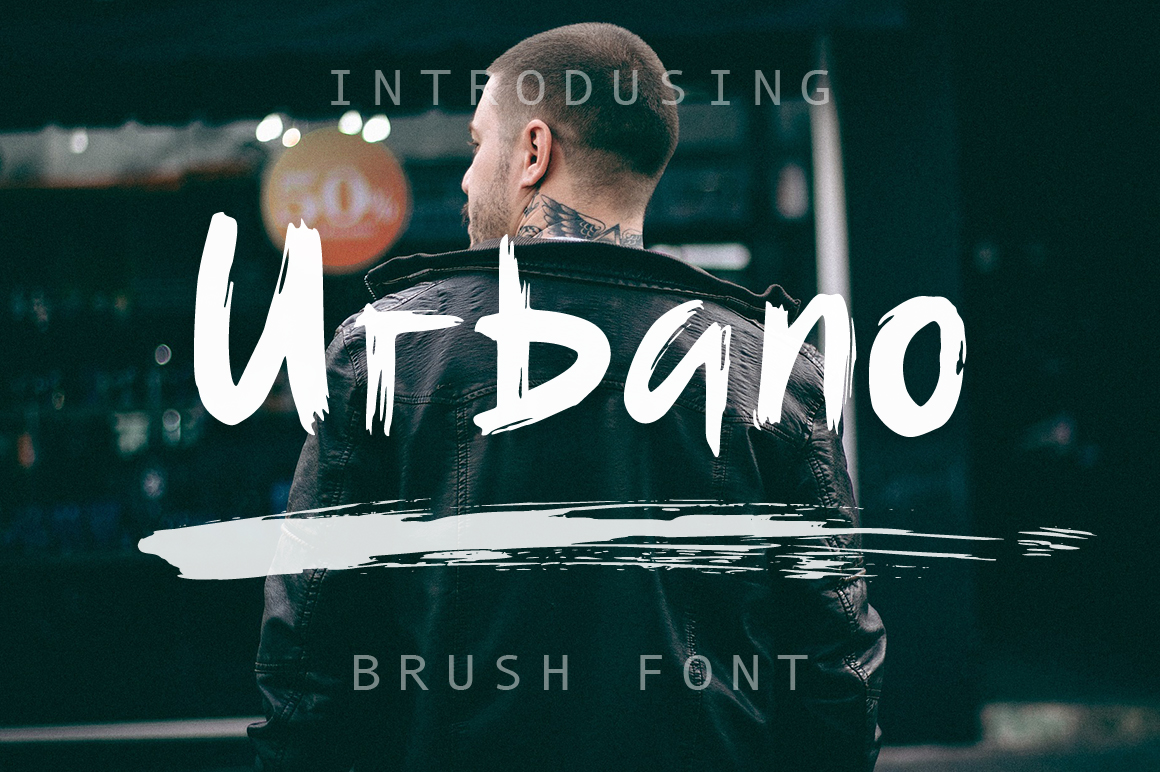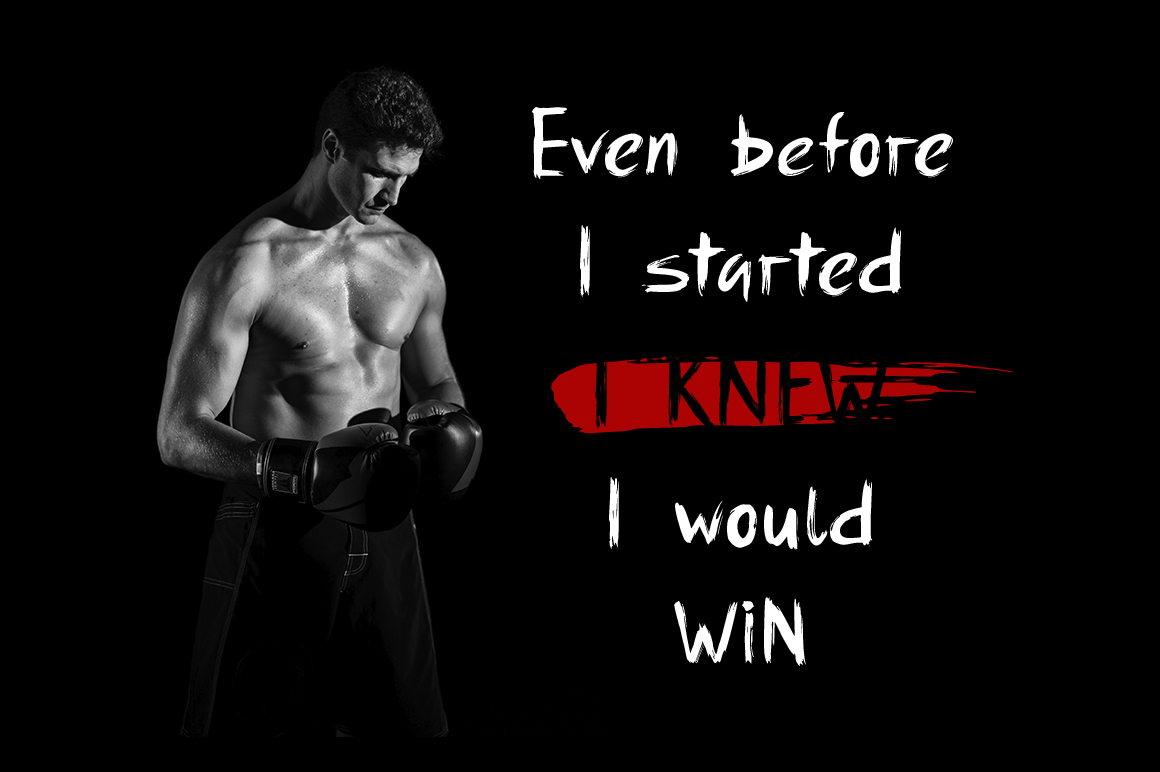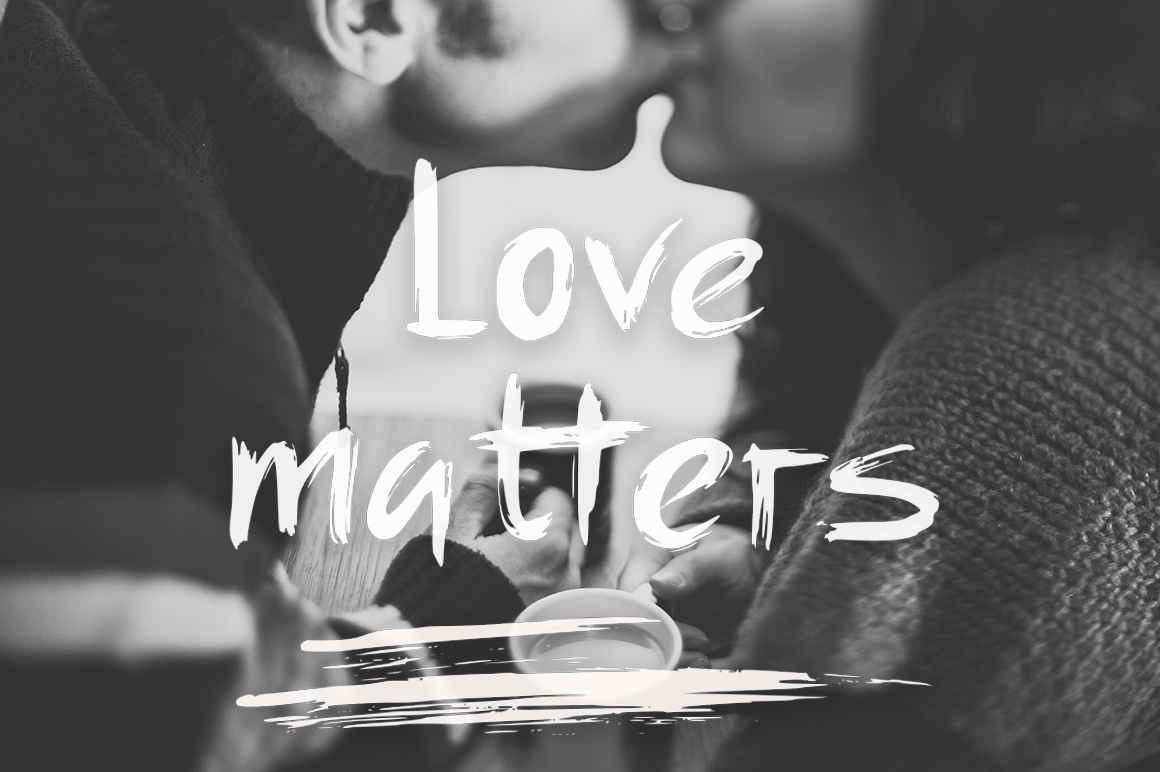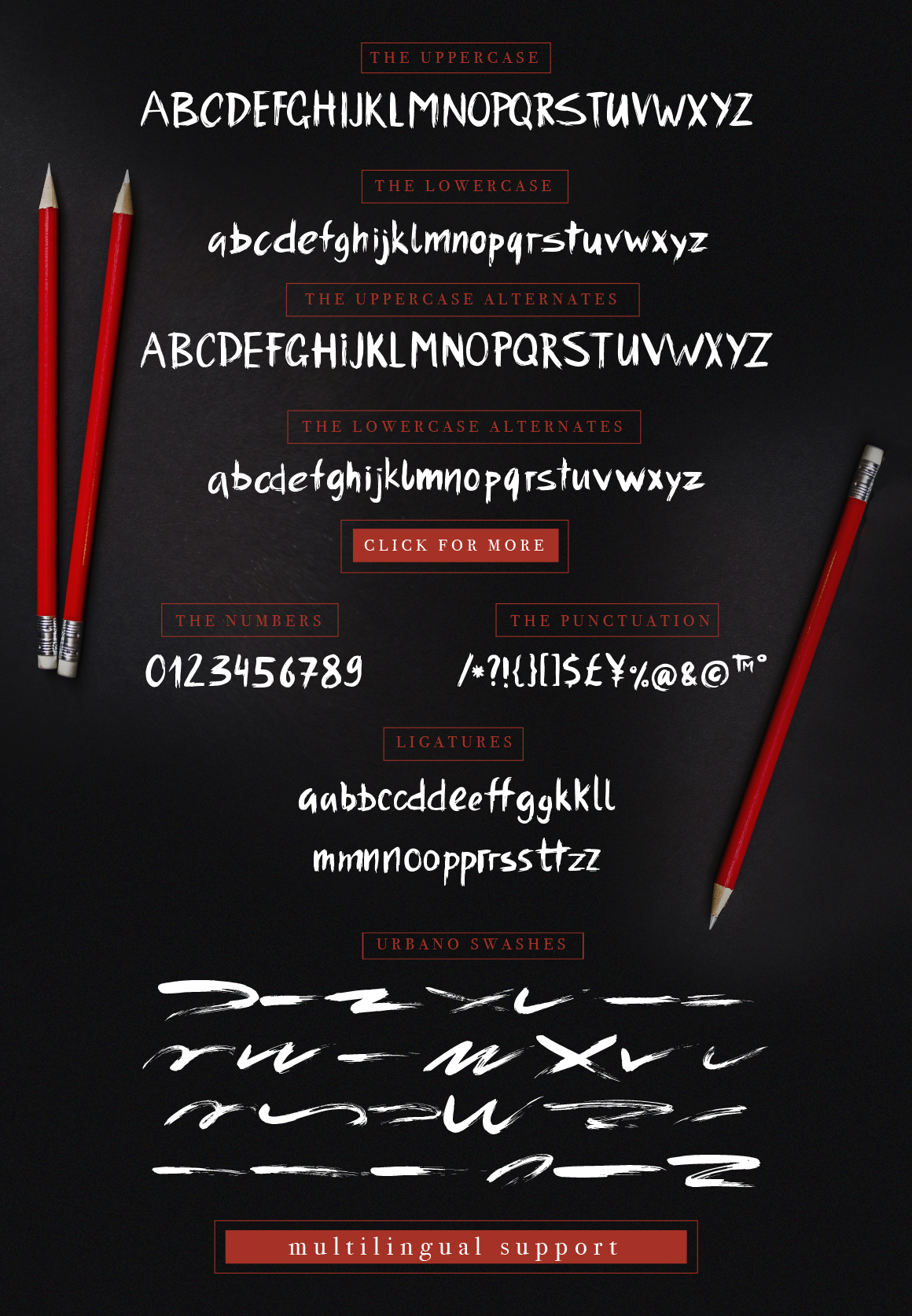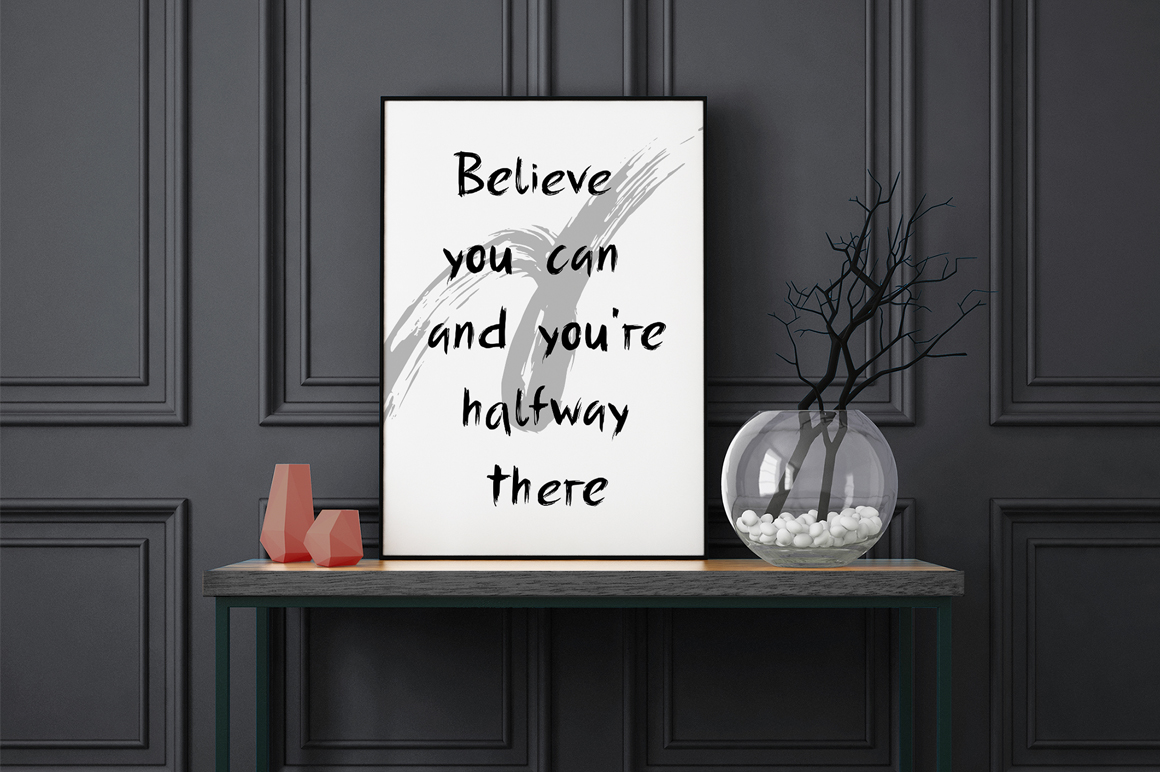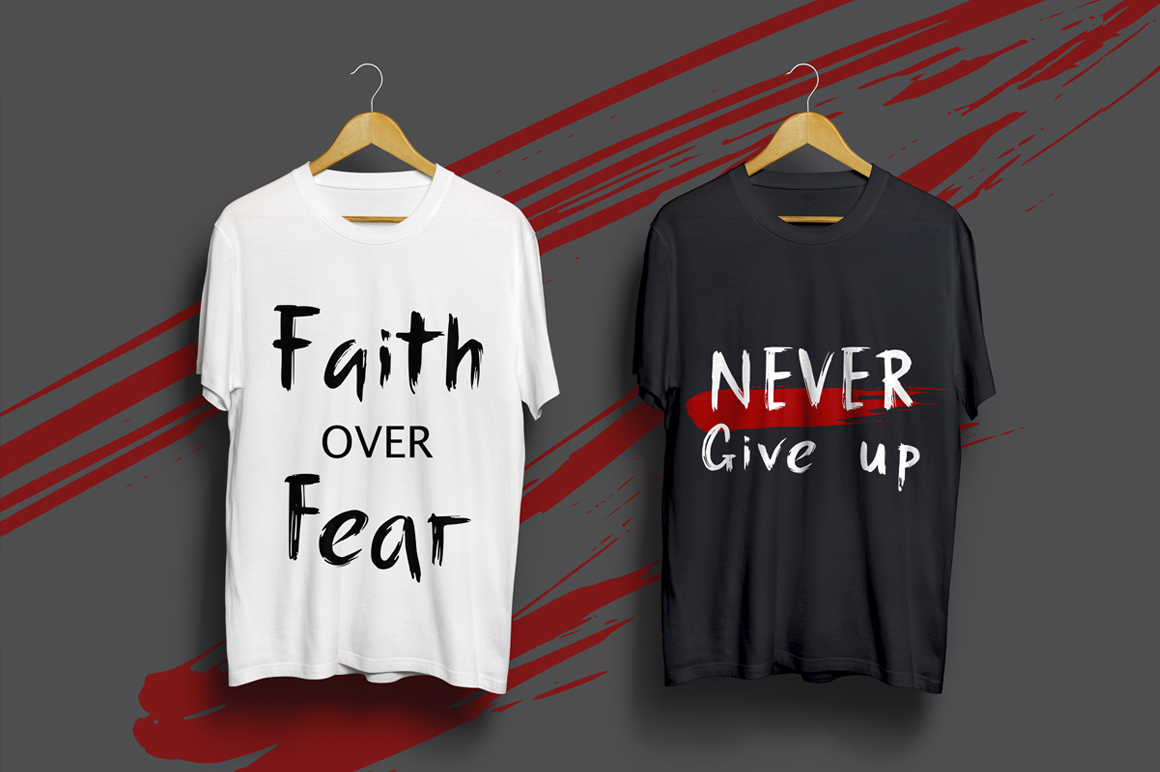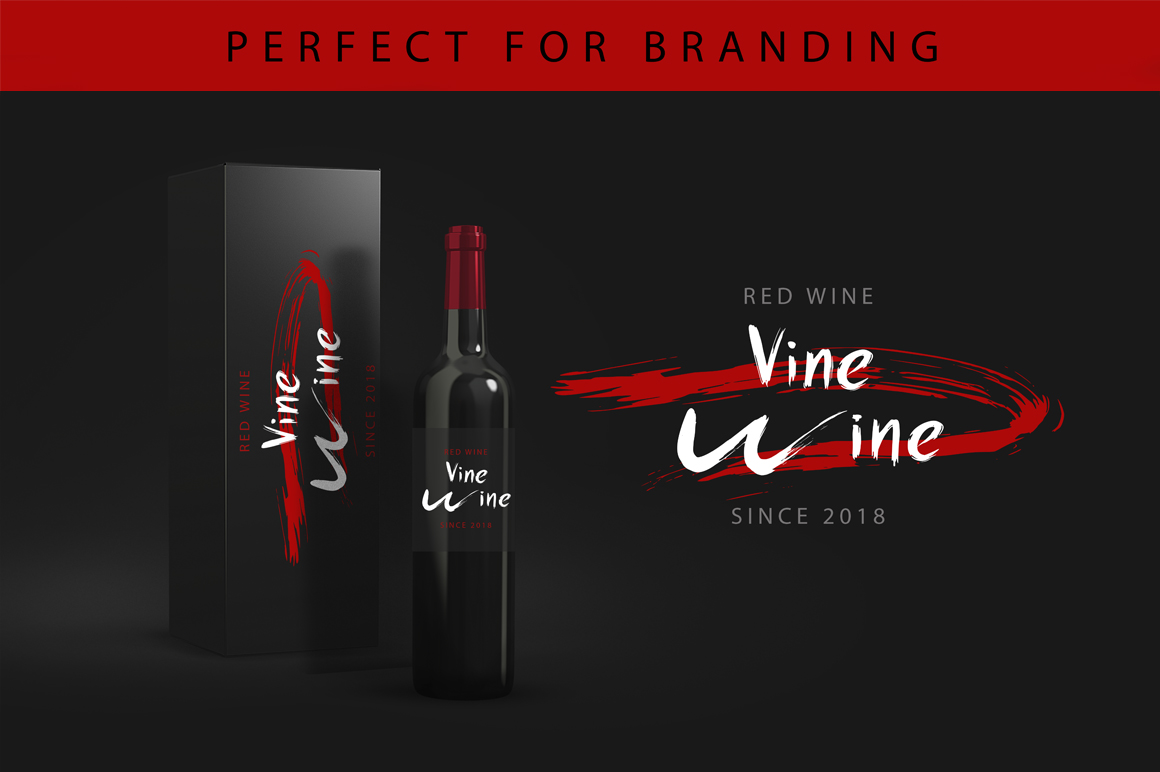
Urbano Font
About Urbano Font
Introducing: Urbano! It’s urban handwritten brush font with its own special character. Rough texture of large brush and steep rapid brush strokes make Urbano perfect for display designs; the only limit is your imagination!